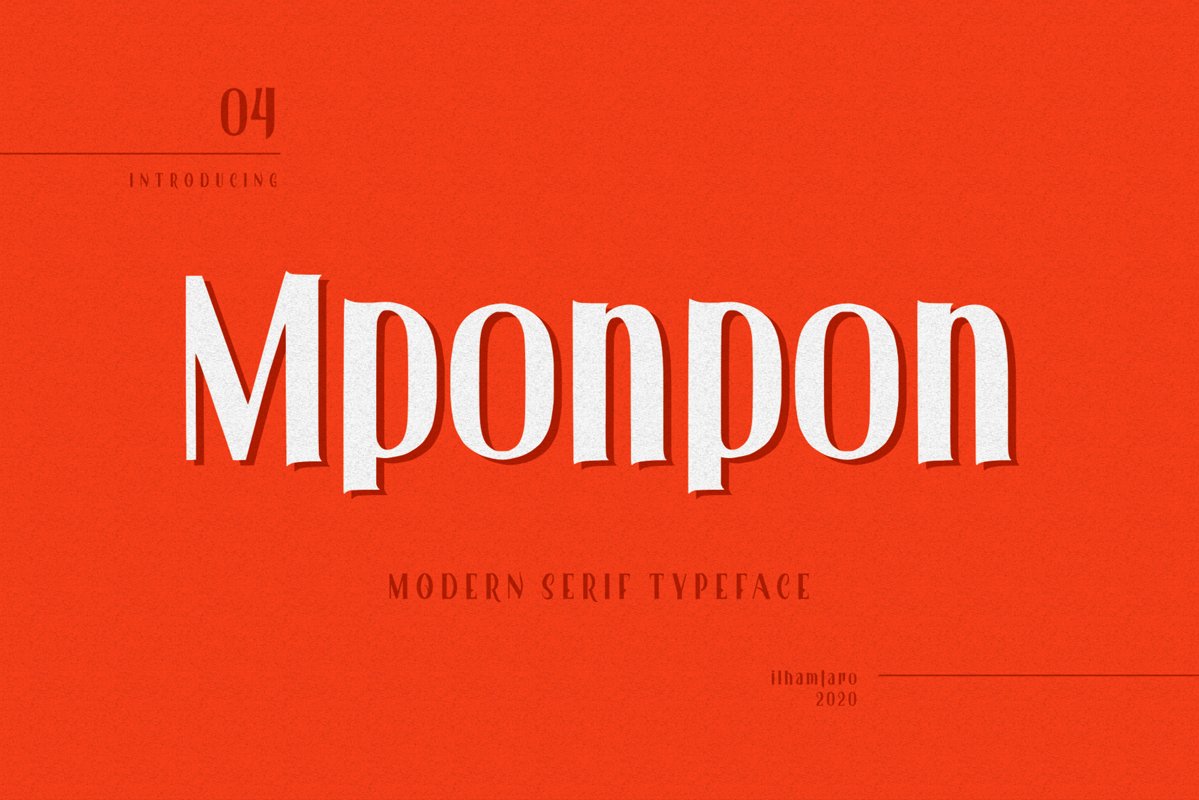
Mponpon
MPONPON is a vintage serif type, with a handrawing style so it is not neat but very unique in shape so it is suitable for branding, badge logos, logotypes, flyer designs etc.